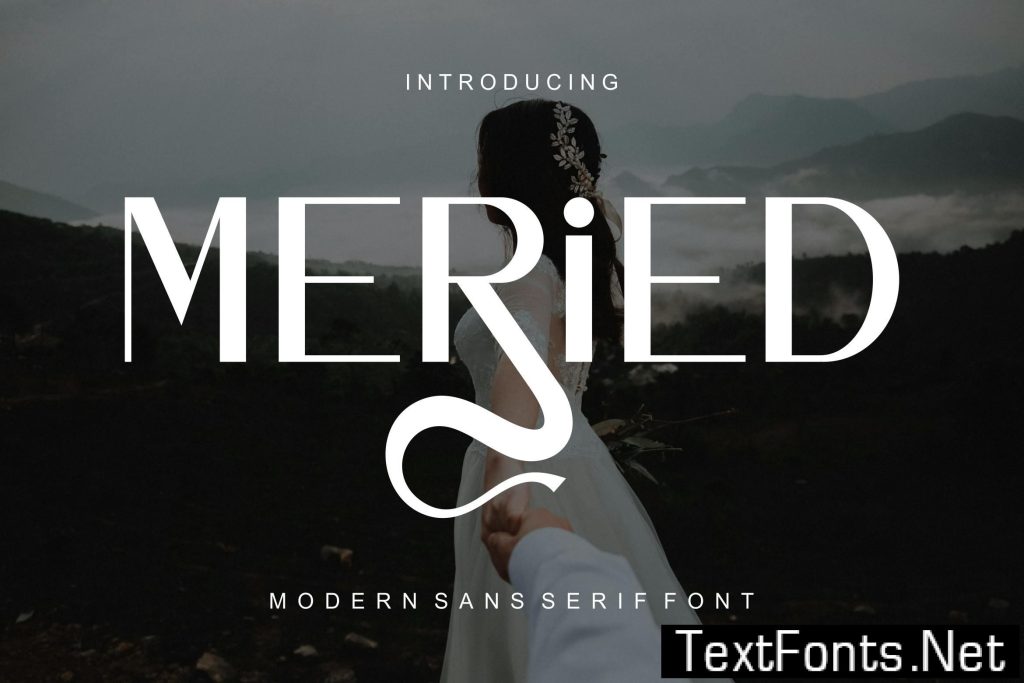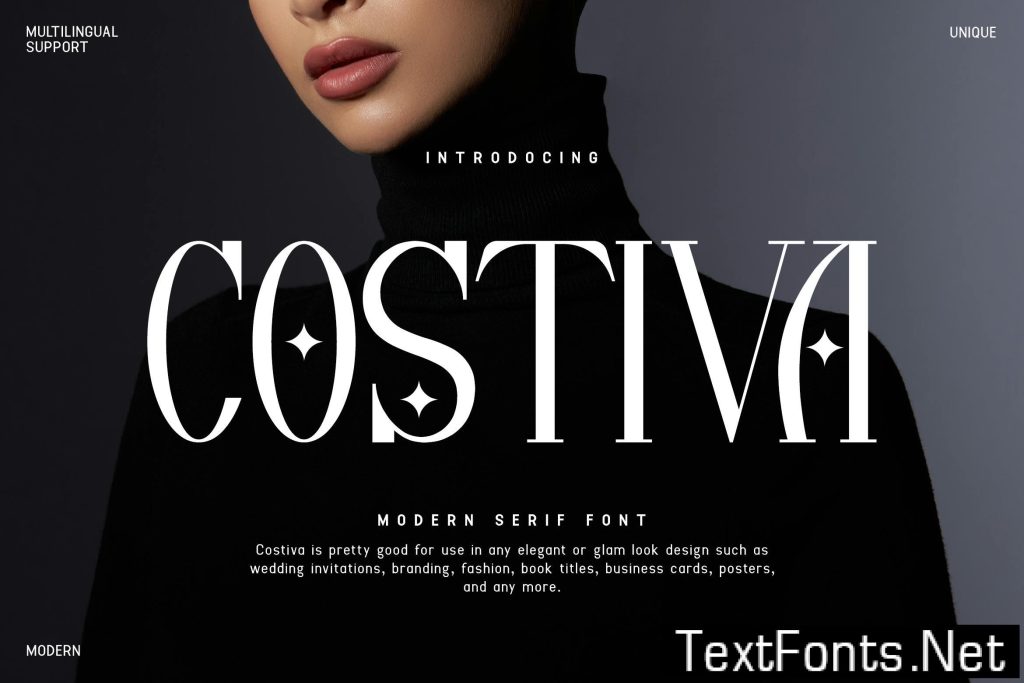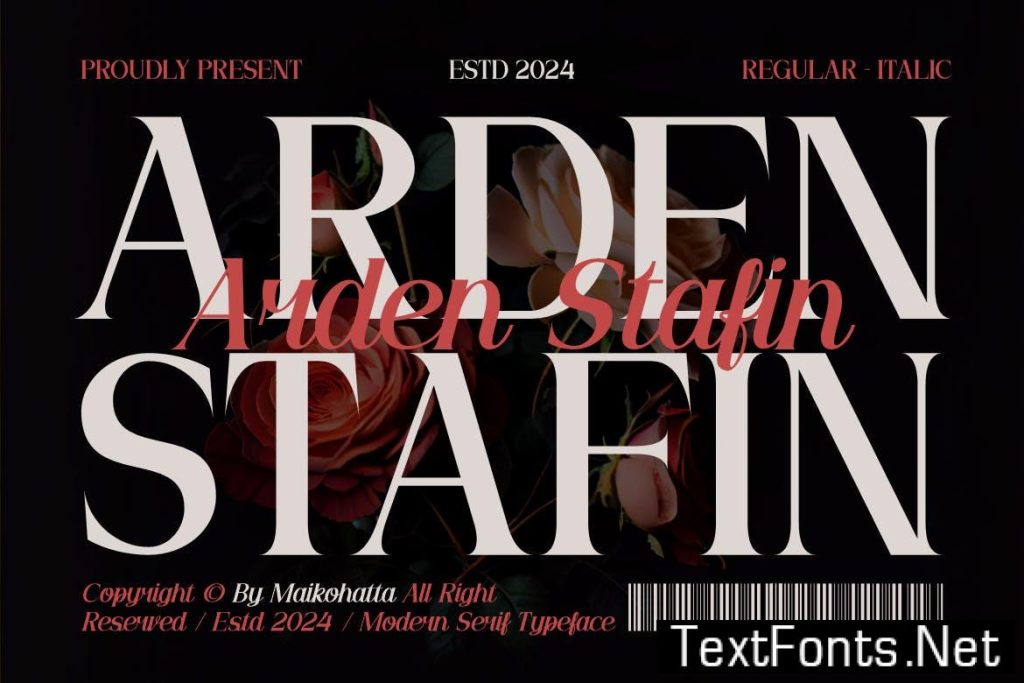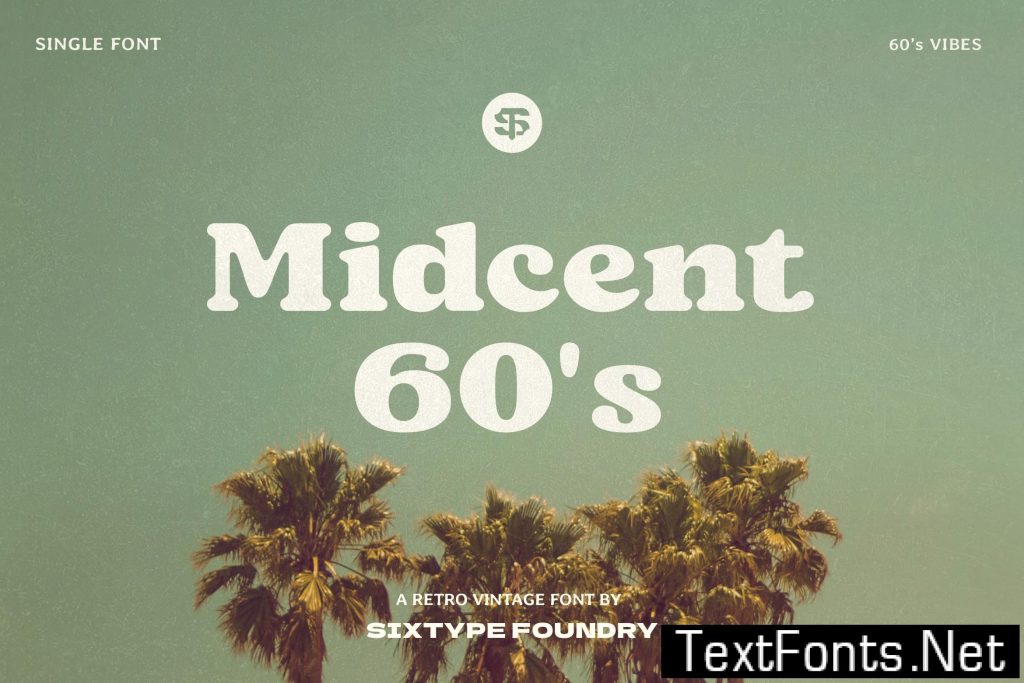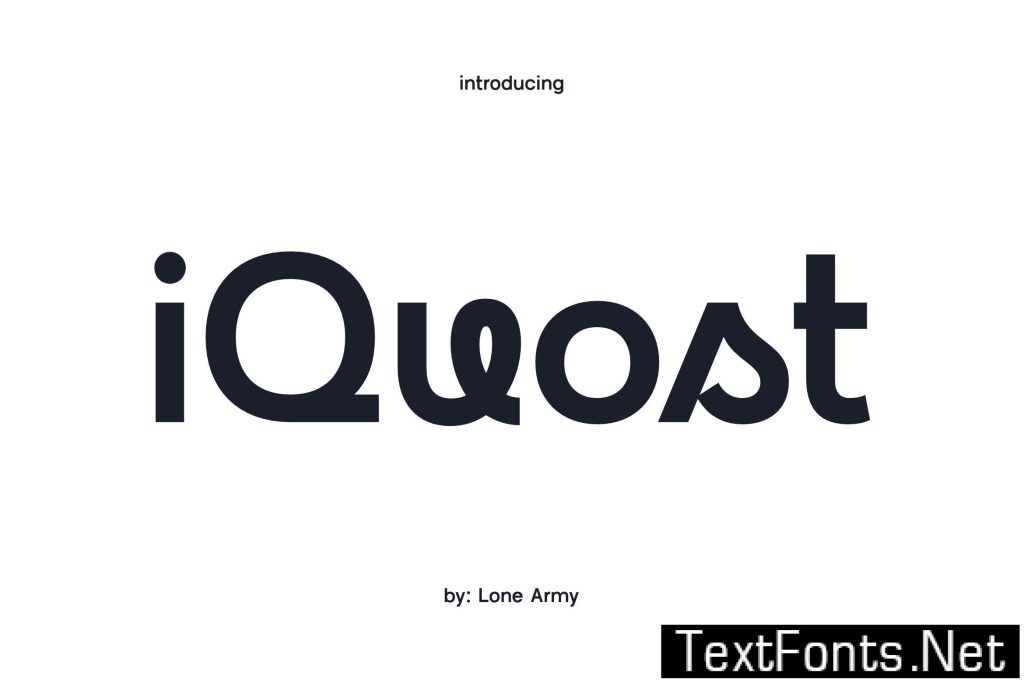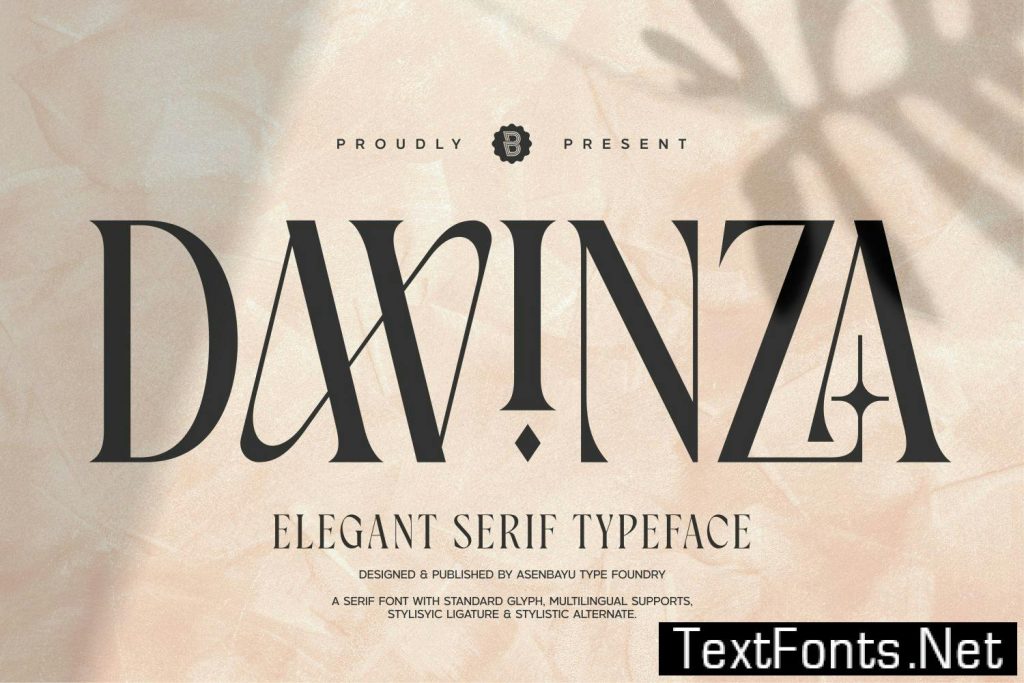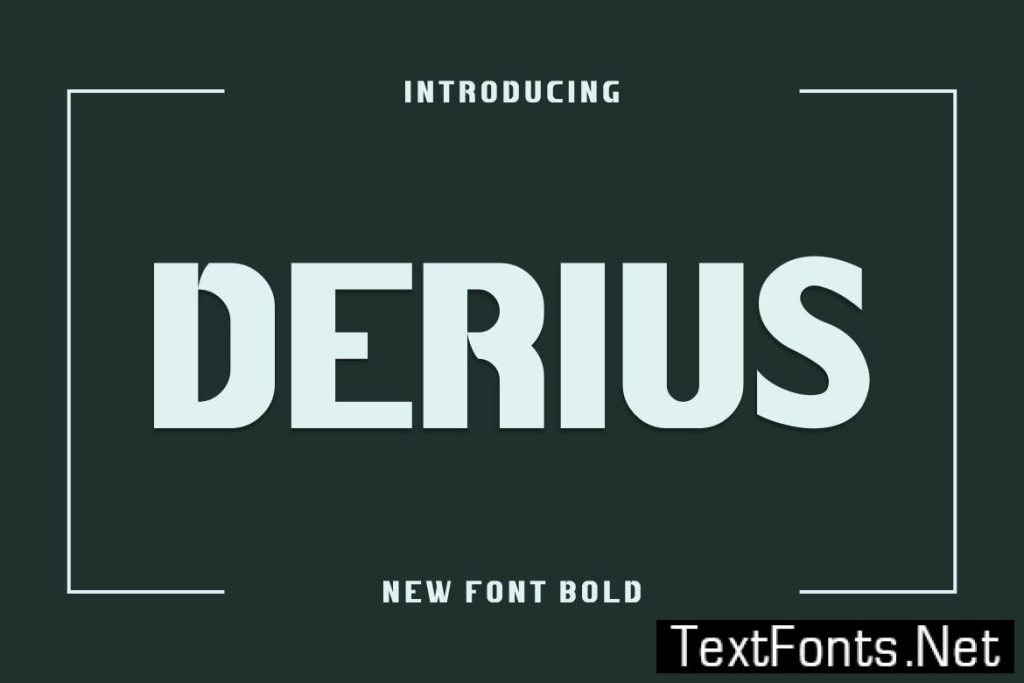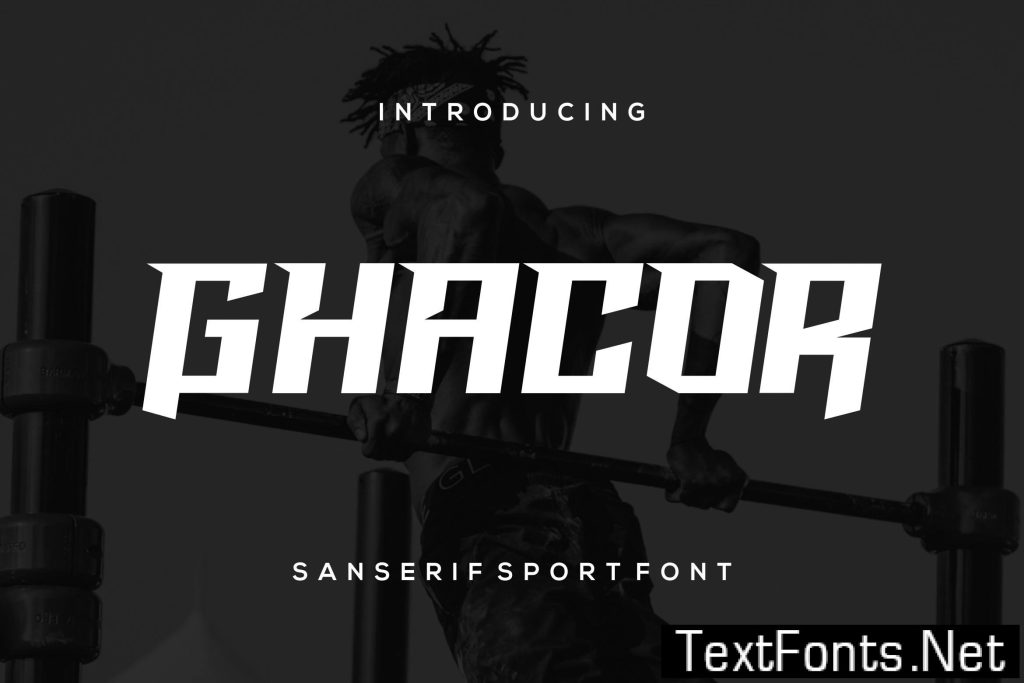
Ghacor – San Serif Sport Font VJ6Q3SQ
**Ghacor** is a unique font. Can make it easier to convey the message in your design. Use for awesome display, labeling, clothing, movie sceen, poster, movie title, gigs, album covers, logos, and much more. * Uppercase & lowercase letters * Numbers & punctuation File Included * OTF * TTF spacing: NormalserifSansSerif: Sans-SerifoptimumSize: Any SizeAdditions: isWebfont
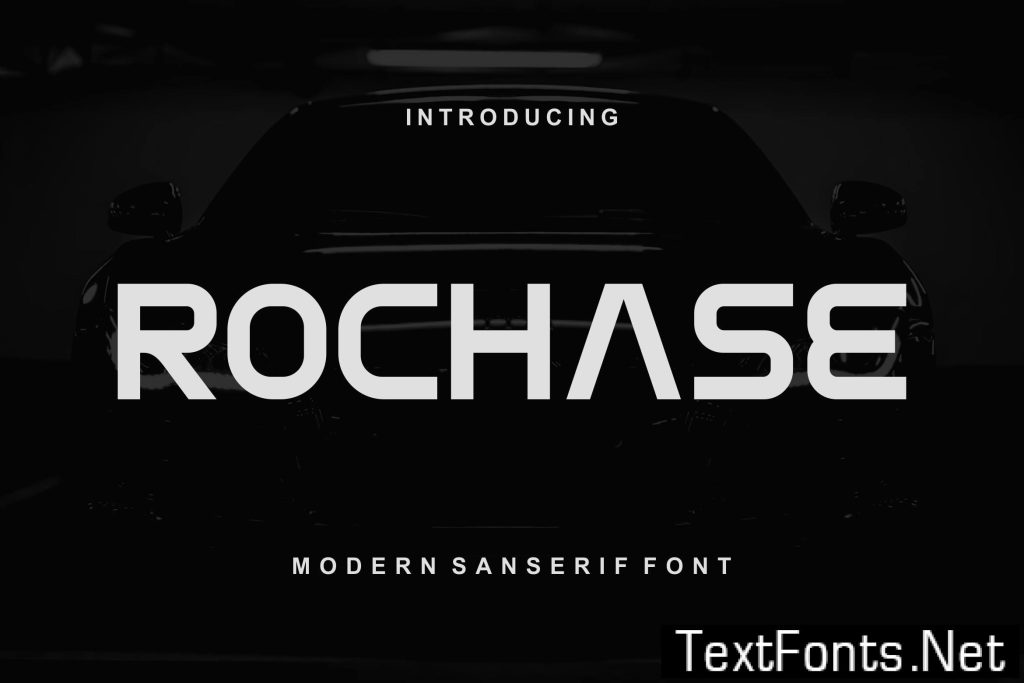
Rochase REYBWQ4
**Rochase** is a unique font. Can make it easier to convey the message in your design. Use for awesome display, labeling, clothing, movie sceen, poster, movie title, gigs, album covers, logos, and much more. * Uppercase & lowercase letters * Numbers & punctuation File Included * OTF * TTF spacing: NormalserifSansSerif: Sans-SerifoptimumSize: Any SizeAdditions: isWebfont
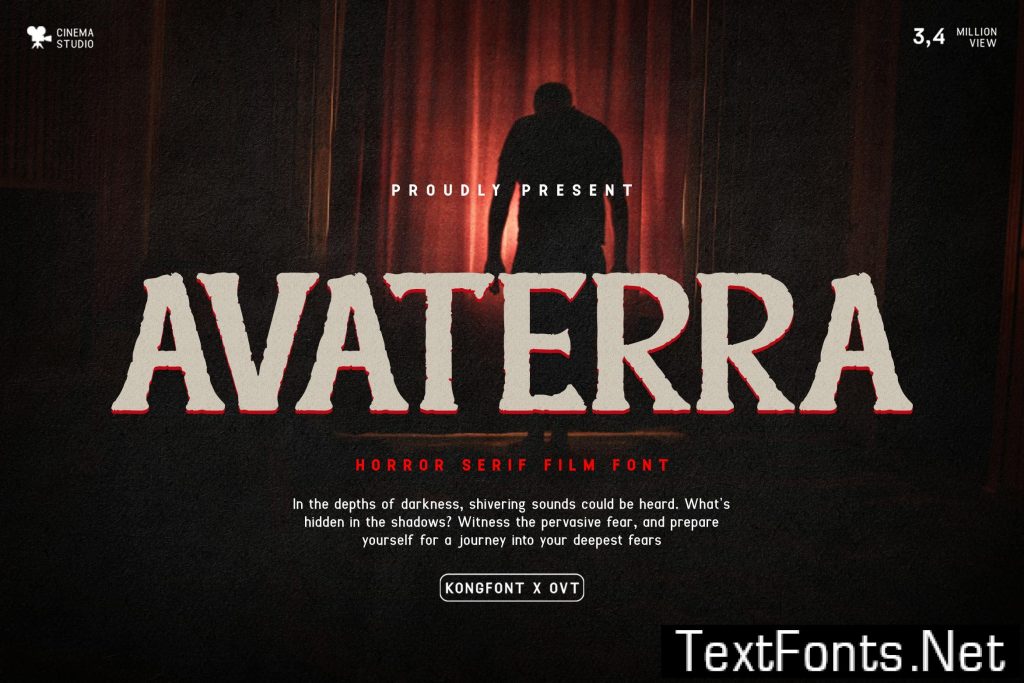
Meried – Modern San Serif Font RXZ6BUD
**Meried – Modern San Serif Font** is a unique font. Can make it easier to convey the message in your design. Use for awesome display, labeling, clothing, movie sceen, poster, movie title, gigs, album covers, logos, and much more. * Uppercase & lowercase letters * Numbers & punctuation File Included * OTF * TTF spacing:
Avaterra – Horror Serif Film Font WJ3MCV9
**Avaterra – Horror Serif Film Font** Step into the shadows with “Avaterra,” a chilling horror serif font designed specifically for the film industry and thematic projects that demand a touch of terror. Avaterra combines the timelessness of serif typography with the eerie subtleties required to convey fear and suspense. **_You will receive the font files
Costiva – Modern Serif Font JVU9NMJ
**Costiva – Modern Serif Font** Introducing “Costiva,” a sleek and modern serif font that offers a blend of contemporary design with classic typography. Perfect for designers who appreciate subtlety and strength in their typefaces, Costiva is designed to make a lasting impression whether used in digital media or print. **_You will receive the font files
Arden Stafin – Modern Serif Typeface 7D6PFAJ
Introducing our new product **Arden Stafin** – Modern Serif Typeface This font features a balanced proportion of stroke thickness and fineness, creating attractive and easy-to-read visuals. This modern serif style is often characterized by a bold distinction between thick and thin lines, providing a touch that is understated but still stands out. **available** * otf
Midcent 60s – Retro Black VG2GKQB
A curvaceous serif typeface inspired by the ambiance of the 1960s holds the power to infuse digital designs with a captivating vintage allure. With its elegant curves and nostalgic charm, this typeface transports viewers back to an era characterized by artistic experimentation and cultural revolution. By incorporating such a typeface into digital projects, designers can
Iquost ZNAU7AH
**Iquost Font** seamlessly merges modern sans-serif with playful script. With clean lines and soft curves, it strikes a perfect balance between professionalism and whimsy. Suitable for various design needs, it delivers messages with style and impact. spacing: NormalserifSansSerif: Sans-SerifoptimumSize: Any SizeAdditions: isWebfont, hasDocumentation
Davinza – Elegant Serif Font 35PETKY
Davinza is stunning elegant serif typeface. This font has slim and tall letter proportions so it can give a high-end and minimalist impression. You can use this font in both modern and vintage designs. Use it to convey desired logo designs, attractive posters, unique social media designs, fashion and websites. Stylistic alternate and ligature features
Derius Font L3X3569
**Proudly present our new product Derius Font** * Derius Font is a modern and authentic font. * * Perfect for both professional and branding needs of a product. * * This font is suitable for any branding project like quotes, logo, blog header, poster, banding, letter, invitation, stationery, * * etc… Designed as a versatile